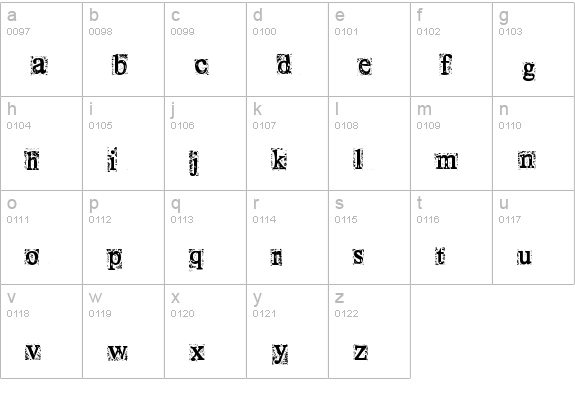
Times New Omen Font Details
Introducing Times New Omen, a font that exudes an air of elegance and intrigue. With its sleek and sophisticated design, this font captures the essence of both the past and the future, making it the perfect choice for those seeking a touch of mystique in their typography. Times New Omen features a unique blend of classic serifs and modern curves, creating a harmonious balance that is visually captivating. Its bold and confident letterforms command attention, making it ideal for headlines, titles, and branding projects that require a strong visual impact. But what truly sets Times New Omen apart is its versatility. Whether you're designing a vintage-inspired poster, a contemporary website, or an editorial layout that demands attention to detail, this font effortlessly adapts to any style, effortlessly transforming your designs into timeless pieces of art. And the best part? Times New Omen is freely available to download at FontsMarket.com. Now, you have the opportunity to enhance your creative projects with a font that not only stands out but also captures the essence of sophistication and allure. So why wait? Unleash your creativity today with Times New Omen and elevate your designs to new heights.